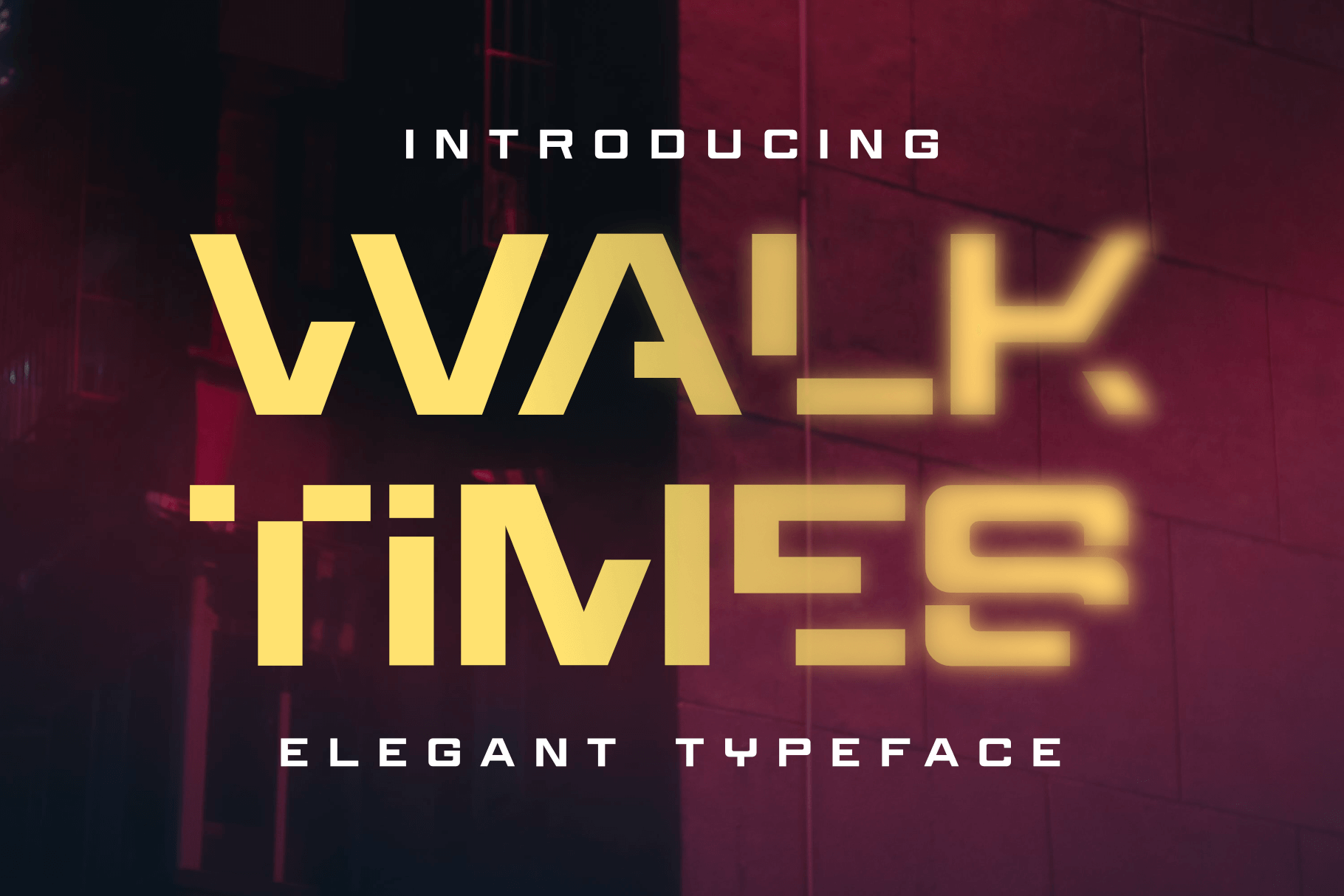
Walktimes - Elegant Typeface
Walktimes - Elegant Typeface is a modern stylish font made for designers, a strong and elegant font can enhance project quality.
Walktimes is perfect for design, logos, social media, branding, advertising, product design, film, quotes, product packaging, headers, posters, merchandise, and other designs.